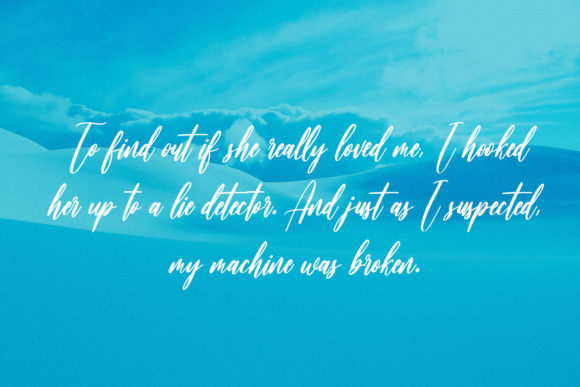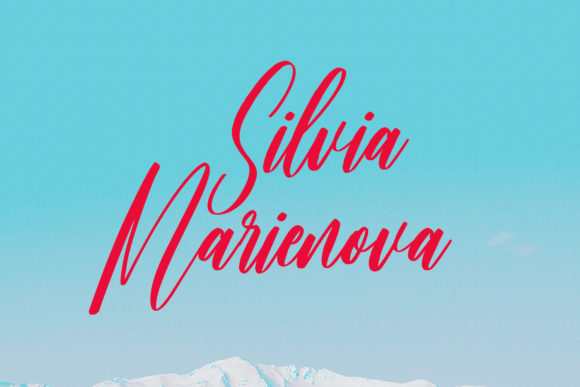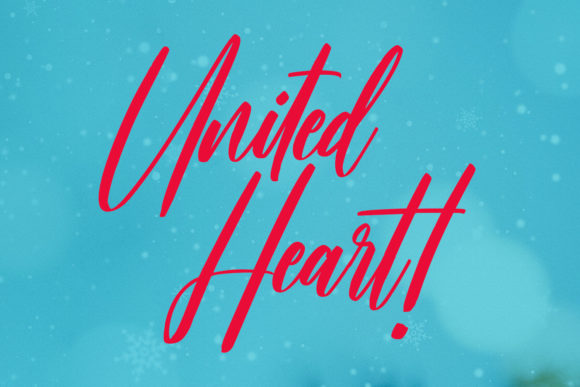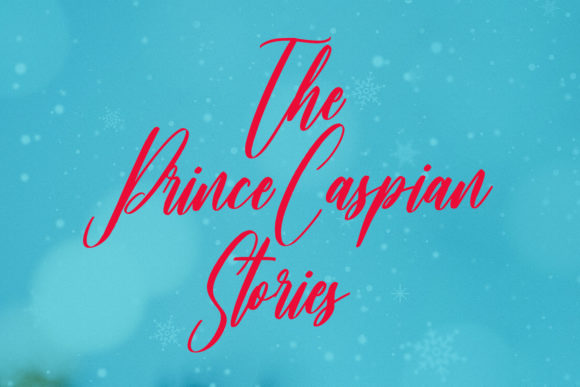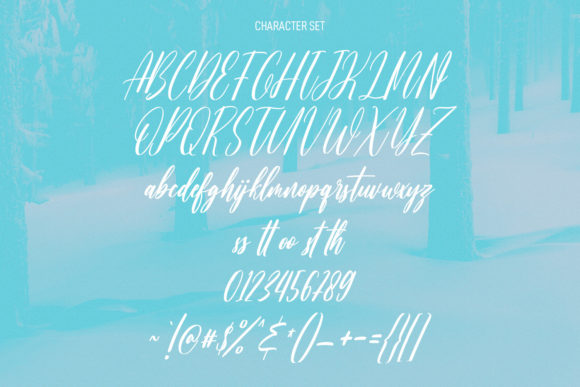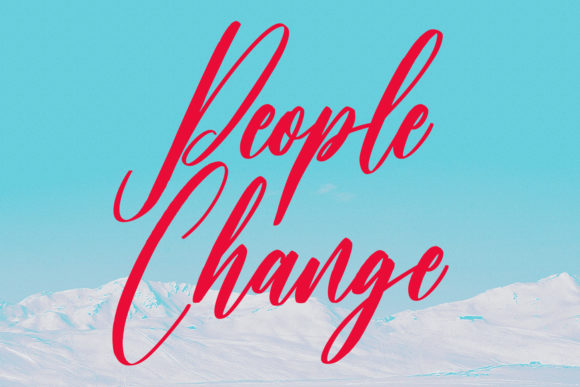
Unlocking the Magic of Beauty Snowy Script Font
Do you remember that moment when a single font choice sparked an entire creative idea? For designers, those ‘aha’ moments are what make our jobs so thrilling. And today, I want to share with you one such font that’s about to become your new go-to: the Beauty Snowy Script Font.
This expressive super slanted signature script font is a game-changer for logo design, social media, movie titles, and more. Its high contrast stroke, condensed, and fun character with ligature make it perfect for adding a touch of personality to your work. Whether you’re working on a short text or a long letter, the Beauty Snowy Script Font is sure to elevate your designs.
Key Features of Beauty Snowy Script Font
- Font Style: Elegant, Handwritten Script Font with a touch of Winter Whimsy
- Character Set: Supports Latin, Cyrillic, and Greek alphabets, covering a wide range of languages
- Unique Characteristics: Includes ligatures, swashes, and flourishes, adding a touch of sophistication and elegance to any design
- Font Weight: Regular, with an optional Bold version available for added emphasis
Designer Review: Beauty Snowy Script Font
I recently had the chance to work with the Beauty Snowy Script Font, and here’s my honest take on it.
- The font’s script design is beautifully crafted, making it perfect for adding a touch of elegance to your designs.
- It comes in a range of sizes, from small to large, making it versatile for various design projects.
- The font’s high contrast makes it easy to read, even at smaller sizes.
- It’s fully editable, allowing you to customize it to your heart’s content.
- The font is not suitable for titles or headings due to its script design, which can be difficult to read in small sizes.
- It may not be the best choice for paragraphs of text, as it can be quite ornate and may require more spacing.
The Beauty Snowy Script Font is a beautiful addition to any design project. While it may have some limitations, its unique design and versatility make it a great choice for designers looking to add a touch of elegance to their work. I’d definitely recommend it for projects that require a script font, but just be mindful of its limitations.
Tips for Getting the Most Out of the Beauty Snowy Script Font
Use the Beauty Snowy Script Font to add a touch of elegance and sophistication to your designs. Pair it with bold fonts for contrast, and use it sparingly to avoid overwhelming the viewer.
The Beauty Snowy Script Font is perfect for:
– Social media graphics and promotions
– Digital and print advertising
Alternative Font Options for Beauty Snowy Script Font
Carolyna Pro is a beautiful, elegant script font ideal for wedding invitations, greeting cards, and other formal events. Its flowing connections and subtle flair make it perfect for adding a touch of sophistication and romance. Compared to Beauty Snowy Script Font, Carolyna Pro has a more delicate and refined feel, with a greater emphasis on precision and control.
Great Vibes is a modern script font that combines elegance with a touch of playfulness. It’s perfect for creating eye-catching headings and titles that add a sense of excitement and energy to your designs. While Beauty Snowy Script Font has a more traditional feel, Great Vibes is more contemporary and adaptable to a wide range of design styles.
3. Ostrich Sans
Ostrich Sans is a unique and expressive script font that’s perfect for adding a touch of whimsy and personality to your designs. Its loose connections and fluid lines make it ideal for creating a sense of movement and energy. Compared to Beauty Snowy Script Font, Ostrich Sans has a more relaxed and casual feel, with a greater emphasis on experimentation and creativity.